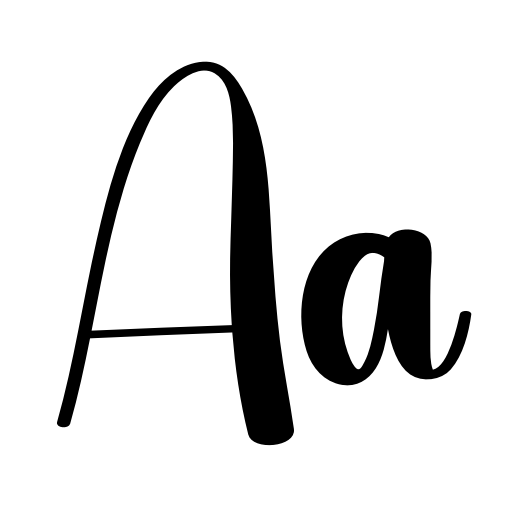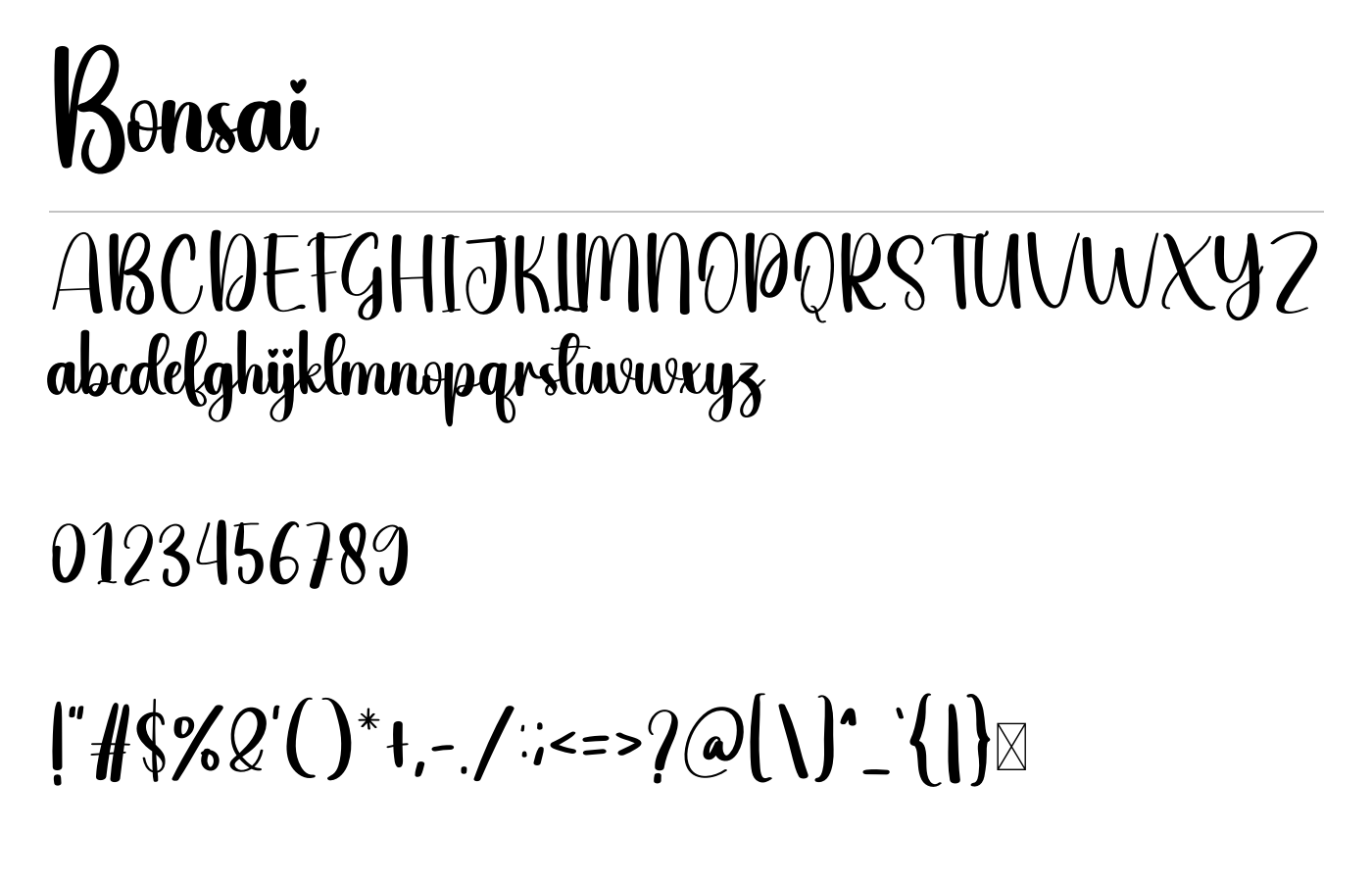
Bonsai is a playful and charming script font with a handwritten feel, featuring smooth, rounded letterforms and delicate details like heart-shaped dots. Its combination of bold lowercase and tall, narrow uppercase letters gives it a friendly yet elegant personality, perfect for casual branding, invitations, and creative projects. This font works well for designs that want to convey warmth, creativity, and approachability.
Bonsai Font